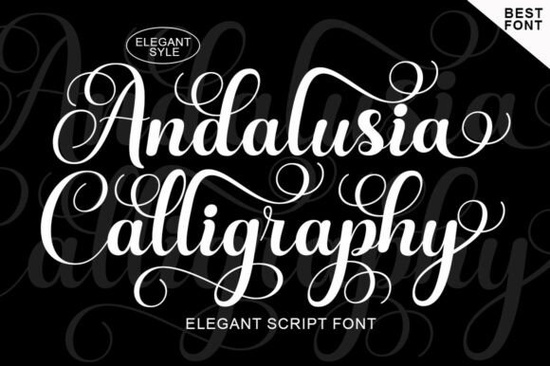
If you're looking for a script font that feels both timeless and fresh something elegant enough for wedding stationery but versatile enough for modern branding the Andalusia Calligraphy Font is worth your attention. It’s not just another decorative script; it’s carefully drawn with nuanced letter connections, subtle variations, and a balanced rhythm that makes it easy to read at small sizes and striking at large ones. Designers and small business owners often tell us they need fonts that work across print and digital without needing constant tweaking and this one delivers that quiet reliability.
What makes Andalusia Calligraphy different from other script fonts?
Most script fonts fall into two camps: ultra-feminine and delicate (which can fade on packaging or signage), or bold and flashy (which don’t suit refined contexts like boutique labels or literary covers). Andalusia Calligraphy sits comfortably in the middle. Its letters flow with graceful joins, but the strokes are clean not overly ornate so it holds up well in real-world use. Unlike many calligraphy fonts that rely heavily on ligatures or require OpenType-aware software, Andalusia uses PUA encoding. That means all alternate characters, swashes, and decorative elements show up reliably in standard apps like Canva, Adobe Express, or even Microsoft Word no extra setup needed.
Where does it work best?
This font shines where tone and texture matter most:
- Wedding and event design: Think save-the-dates, place cards, and ceremony programs especially when paired with soft textures or minimalist layouts.
- Fashion and beauty branding: Labels for handmade soaps, organic skincare lines, or small-batch perfume bottles benefit from its gentle sophistication.
- Packaging and product tags: Because it’s legible at 10–12 pt, it works well for ingredient lists or care instructions on apparel hang tags.
- Books and editorial work: Authors using Creative Fabrica fonts for indie novel covers or magazine mastheads often choose Andalusia for chapter titles or pull quotes it adds warmth without distracting from body text.
You’ll also notice it pairs well with neutral sans-serifs (like Montserrat or Lato) for contrast, or with other script fonts that have complementary energy like Wedding Nayla, which leans slightly more romantic, or Preppy Berry, which brings a playful, hand-lettered bounce. For designers who love mixing scripts, Andalusia acts as the grounded, refined anchor in a layout.
How does it compare to similar fonts on Creative Fabrica?
It’s natural to wonder how Andalusia stacks up next to others in the script category. Abigail Font, for example, has a bolder baseline and tighter spacing great for logos but less flexible for long passages. Disney Font leans into nostalgic whimsy, making it ideal for kids’ books or themed parties, but less suited for luxury goods. Andalusia doesn’t try to be everything it’s intentionally restrained, letting the content breathe while still carrying quiet authority.
One thing users consistently mention is how well it scales. A line of text set in Andalusia at 48 pt looks polished on a café menu board; the same line at 14 pt remains clear on a folded greeting card. That practical versatility is rare and valuable when you’re designing across multiple formats.
Who should consider using it?
It’s also beginner-friendly: no steep learning curve, no need for advanced font management tools. If you’ve ever hesitated to use a script font because of technical concerns, this one removes those barriers quietly.
Before downloading, ask yourself:
- Do I need a script font that works equally well on printed materials and digital ads?
- Am I looking for something feminine but not overly sweet elegant but not stiff?
- Do I want full access to alternates and flourishes without installing plugins or switching apps?
If you answered yes to two or more, Andalusia Calligraphy Font is likely a solid fit. Try it on a sample invitation or product label first you’ll quickly see how its balance of flow and clarity supports your message, not overshadows it.